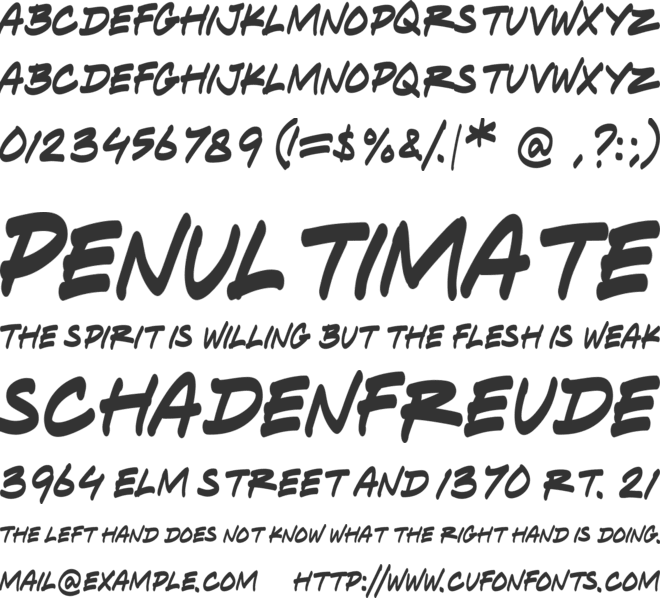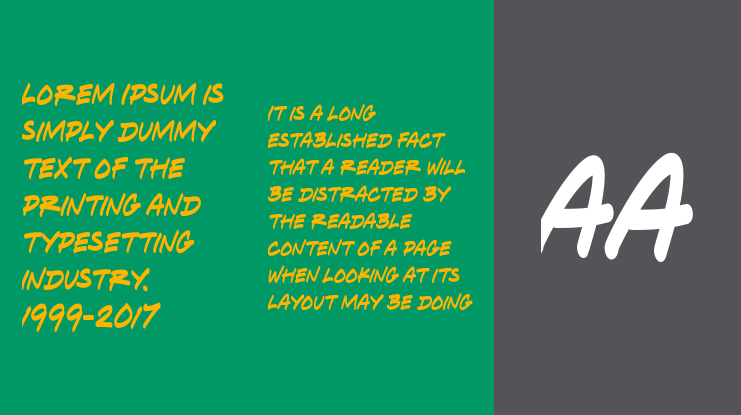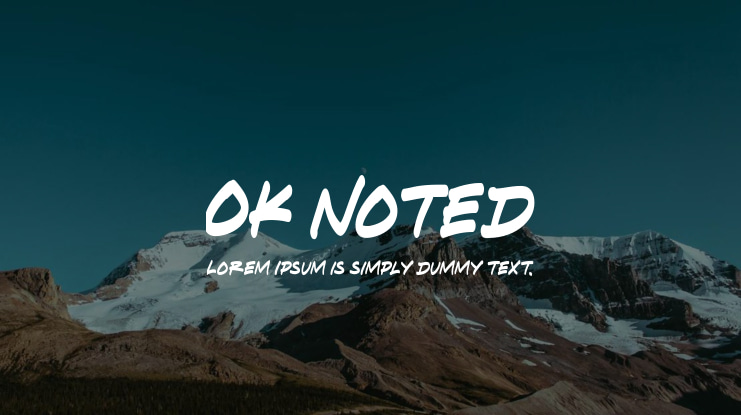
Ok Noted Font
Highlighting the elegance of handcrafted aesthetics, Ok Noted brings a personal touch to any design. The meticulously designed strokes and flowing curves evoke a sense of sophistication and charm, transforming each letter into a masterpiece.
Tailor-made for showcasing, Ok Noted shines in social media kits, headlines, logos, and branding materials. Its bold and distinctive appearance demands attention, guaranteeing your message stands out amidst the crowd.
By integrating Ok Noted into your designs, you breathe new life into your concepts, infusing them with a contemporary flair. Its adaptability ensures seamless integration into a variety of digital creative projects.
Ok Noted font preview